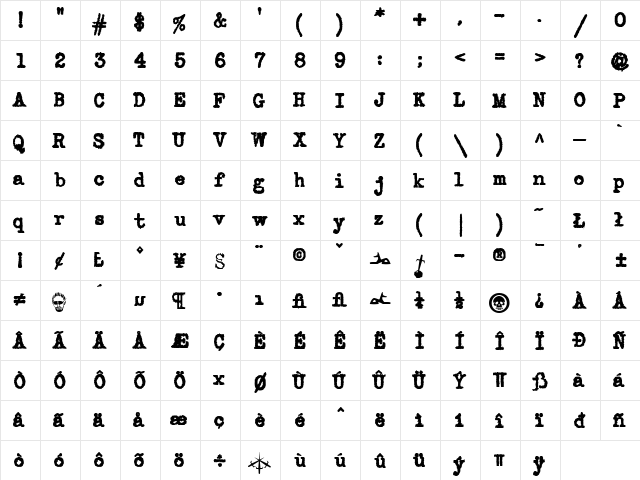
Telepath Extreme Regular
Design Context for Telepath Extreme Typeface
Telepath Extreme takes a measured approach to typography — its balanced proportions and neutral character make it a reliable workhorse for both digital and print work.